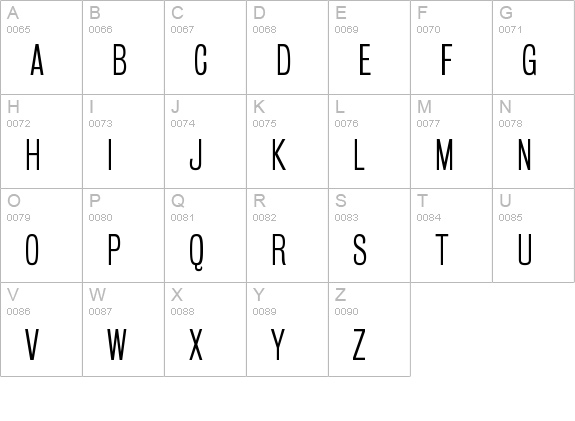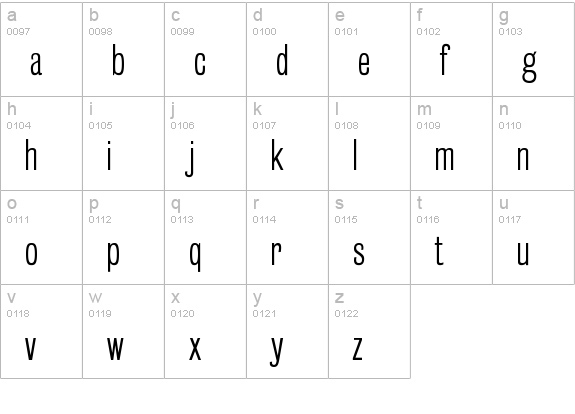
BureauGrotesque-ThreeOne Font Details
BureauGrotesque-ThreeOne is a modern and versatile font that effortlessly combines clean lines with a sleek, contemporary aesthetic. Its sharp edges and geometric shapes give it a bold and commanding presence, making it perfect for a wide range of design projects. Whether you're creating a striking logo, eye-catching headlines, or stylish branding materials, this font is sure to make a statement. What makes BureauGrotesque-ThreeOne even more appealing is that it is available for free download at FontsMarket.com. This means you can easily access and use this high-quality font in your projects without any cost. Don't miss out on the opportunity to enhance your designs with the distinctive flair of BureauGrotesque-ThreeOne - download it today and take your creative endeavors to the next level.